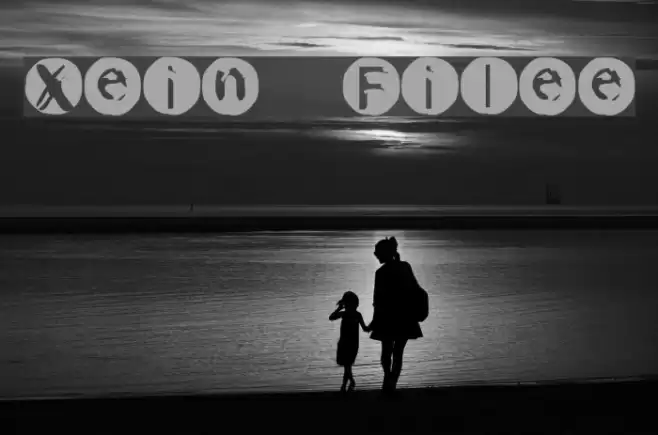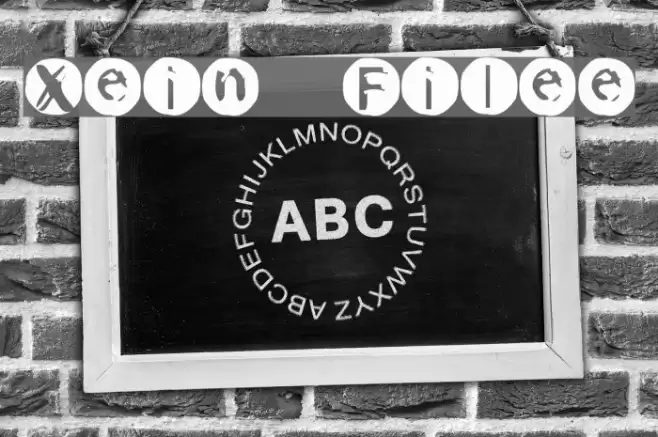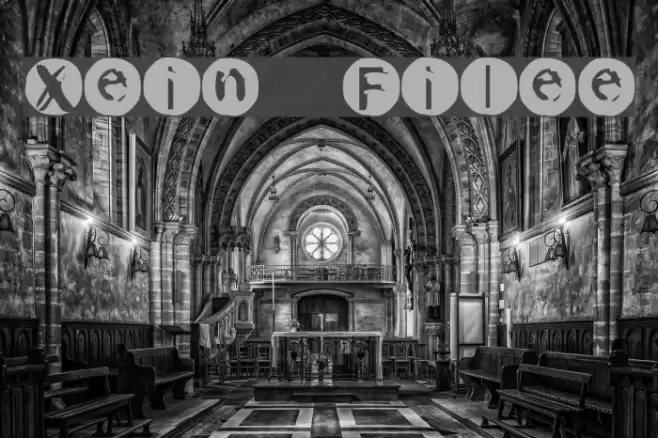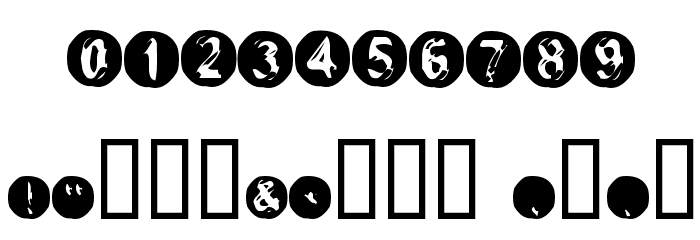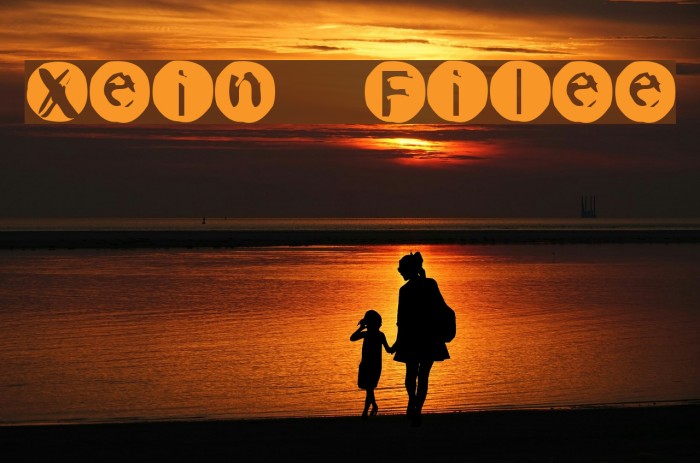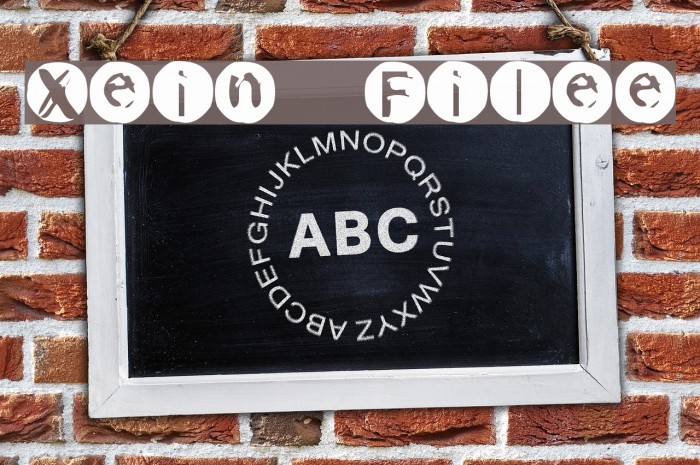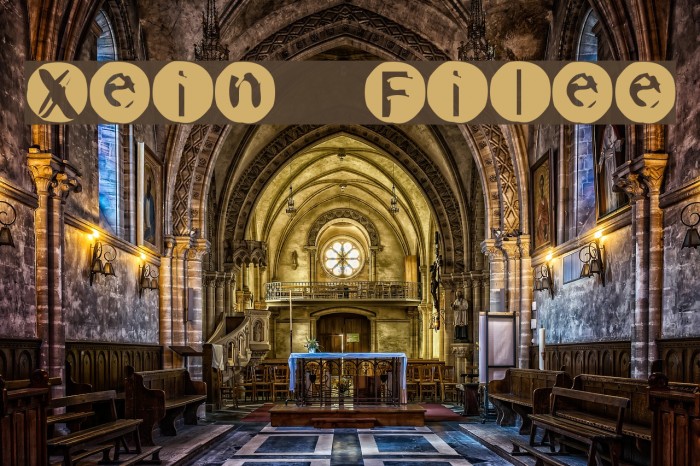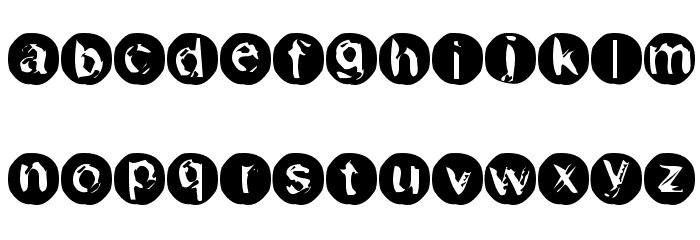
Xeroprint Filetype Font
Xeroprint Filetype Description
This font features a bold, distressed style with each character enclosed in a solid black circle. The letters and numbers appear as if they have been stamped or printed with some wear and tear, giving them a grunge or urban aesthetic. The uppercase and lowercase letters maintain a consistent design, with the distressed effect adding a unique texture to each character. The numbers and special characters follow the same pattern, ensuring uniformity across the typeface. This font's distinctive look makes it stand out, ideal for projects that require a bold and edgy appearance.
A bold, distressed font with characters enclosed in black circles, offering a grunge aesthetic from Images & Symbols fonts.
- Proposed Projects: Ideal for album covers, posters, streetwear branding, or any design needing a bold, urban look.
- Overall Style: Grunge, Urban